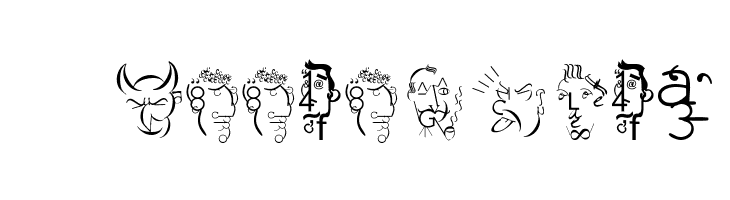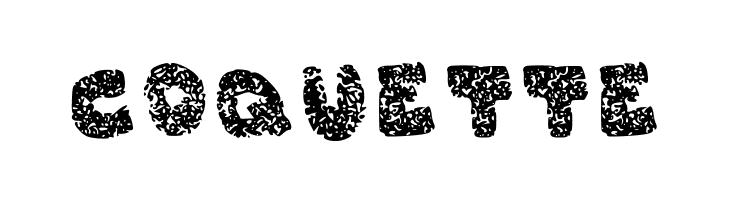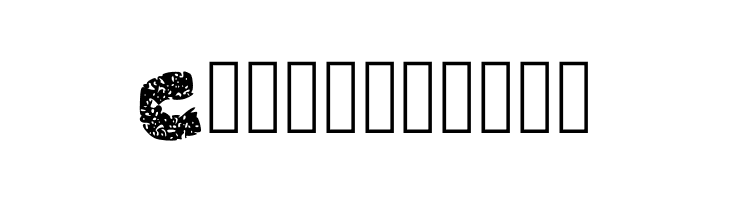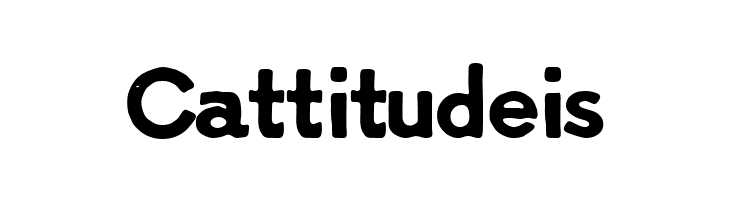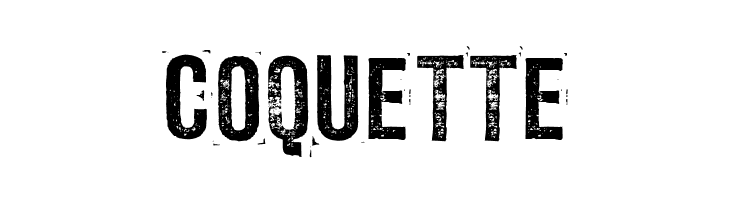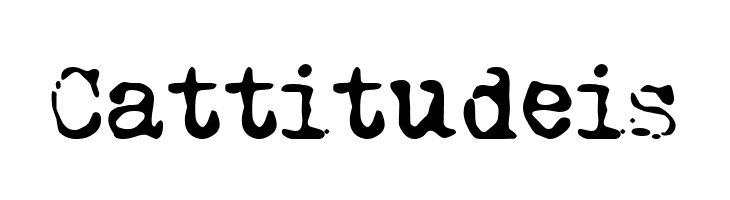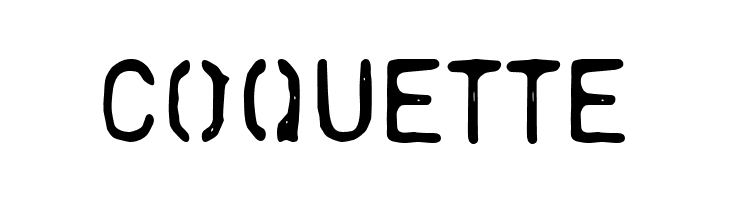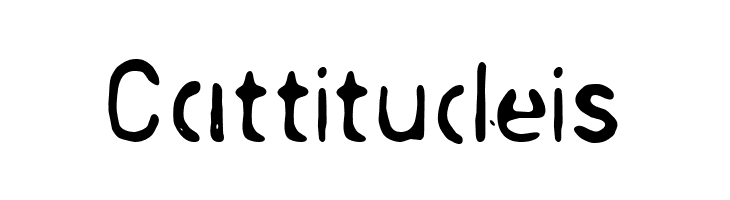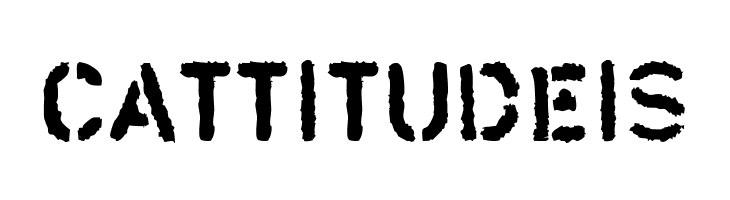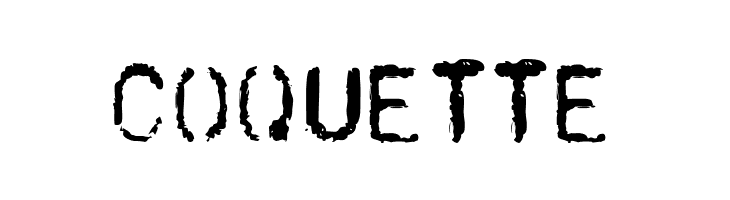
A playful, handwritten font with a whimsical and casual style.
A whimsical and playful pictographic font with bold, stylized animal and human figures.
A distressed, stencil-like font with a vintage, grunge aesthetic.
A modern, dotted font with geometric precision and playful style.
A futuristic, geometric font with rounded edges and a modular design.
Bold geometric numerals paired with clear, functional media and utility icons.
A decorative font with a cross-stitch pattern, ideal for festive designs.
A bold, distressed stencil-style font with rugged, uneven characters.
A bold, distressed font with a vintage, rugged style.
A bold, distressed font with a vintage, western-inspired style.
A classic calligraphic font with elegant, flowing strokes and dynamic character design.
A bold, playful font with rounded edges and a friendly appearance.
A bold, hand-drawn font with an artistic and playful style.
A bold, vintage serif font with a handcrafted, distressed appearance.
A bold, hand-drawn font with textured strokes and a playful, artistic style.
A playful, dotted font with consistent spacing and a decorative style.
A bold, dotted display font with a playful, pixelated style.
A modern, dotted font with a geometric and digital aesthetic.
A bold, distressed font with a rugged, hand-drawn texture.
A bold, playful font with rounded edges and a bubbly appearance.
A bold pictogram font of human heads with conceptual icons.
A bold, textured, and italicized font with a vintage, distressed style.
A bold, distressed font with a grunge, hand-drawn aesthetic.
Playful handwritten font.
A bold, distressed font with a rugged, grunge-inspired style.
A bold stencil font with a rugged, industrial aesthetic.
A bold, hand-drawn font with an artistic and rustic style.
A modern, dotted font with a digital and structured appearance.